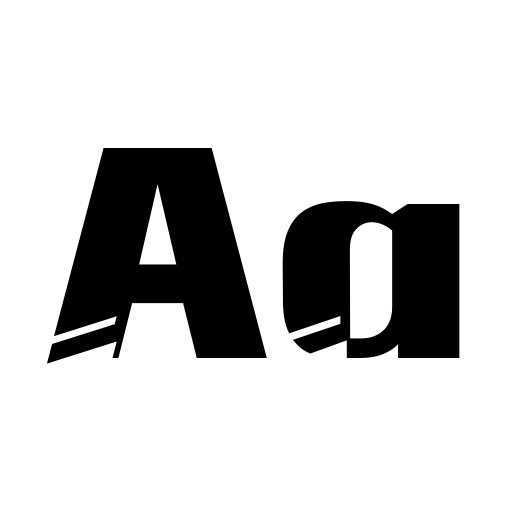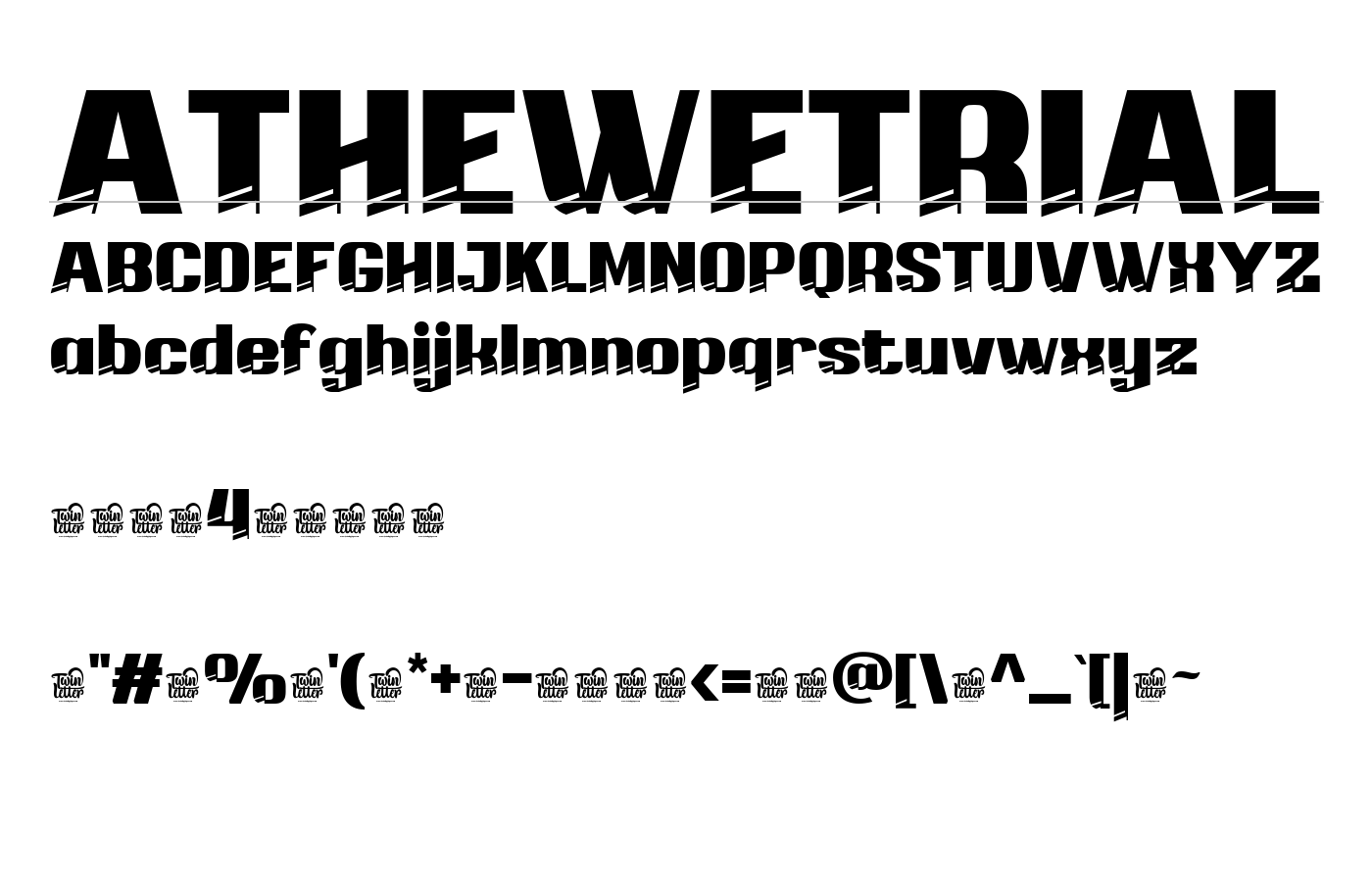
ATHEWETRIAL is a bold, condensed sans serif font with a striking slashed detail that cuts through the lower portion of each character, creating a dynamic and edgy look. Its strong, geometric letterforms combined with high contrast between thick strokes and sharp angles make it perfect for modern branding, headlines, and poster designs that need to convey energy and impact. This font stands out in fashion and urban-themed projects where a bold, innovative style is desired.
ATHEWETRIAL Font
About ATHEWETRIAL Font
| Font family | ATHEWETRIAL Font |
| Designer | HAKIM |